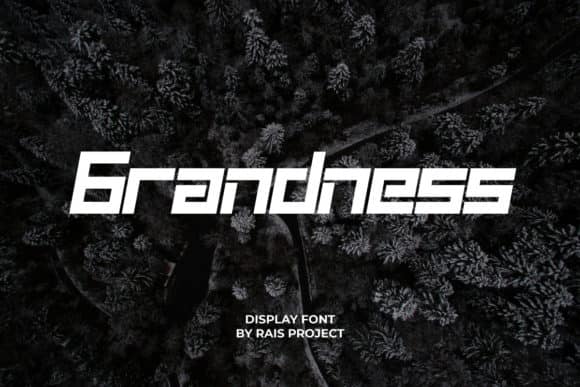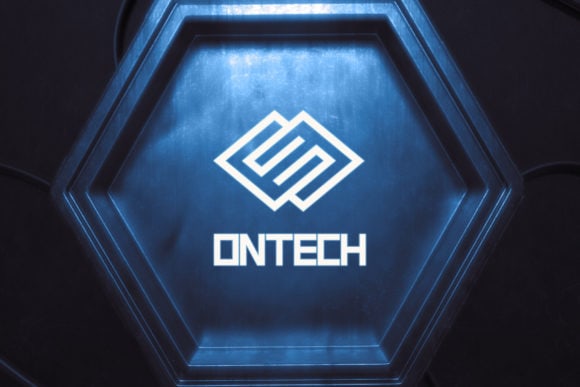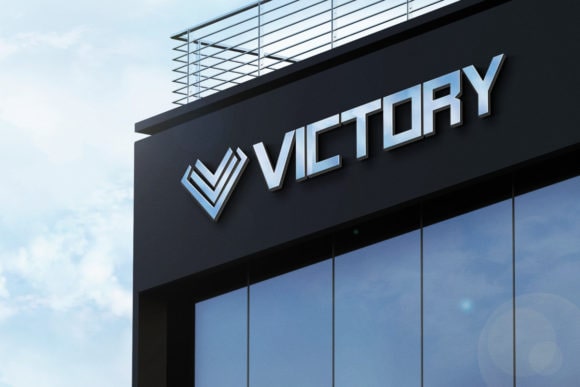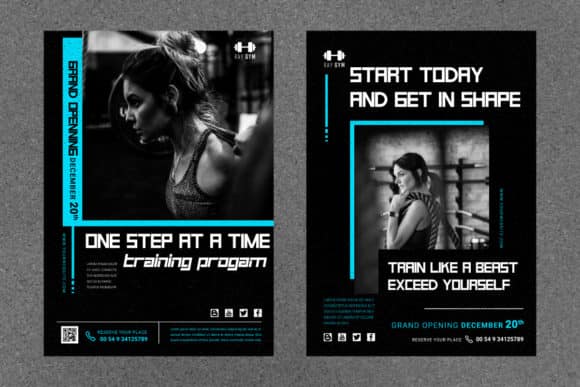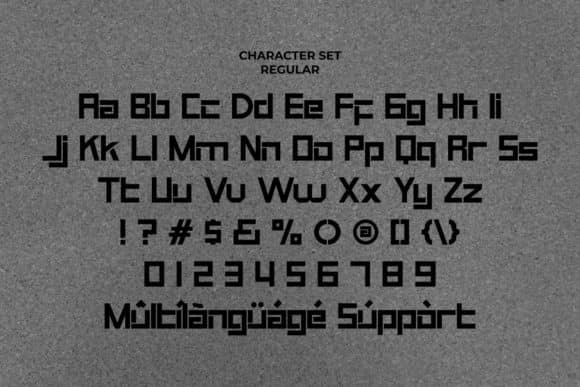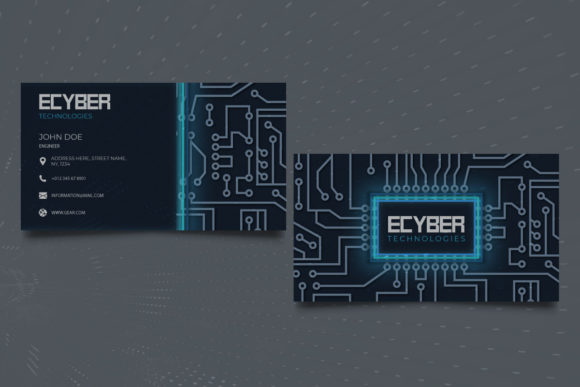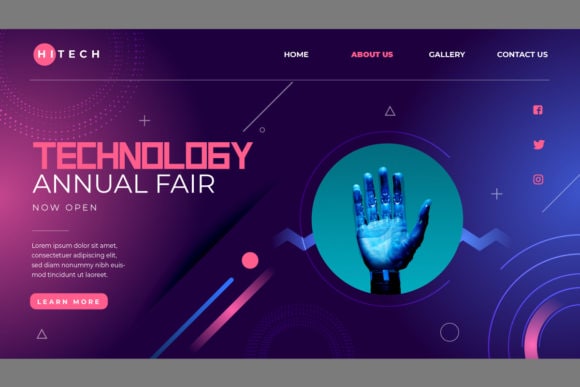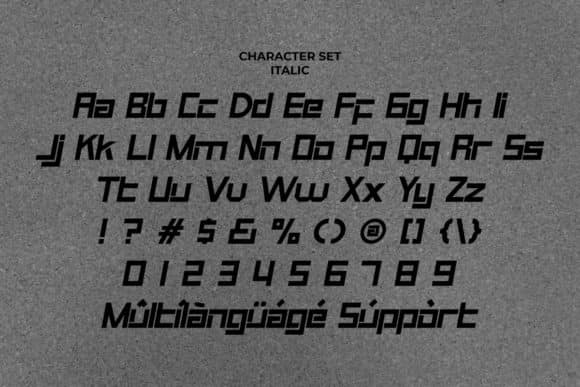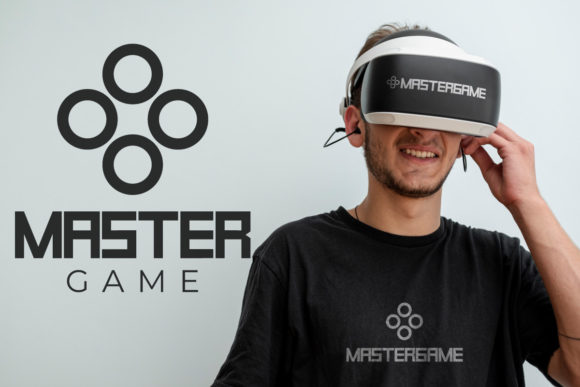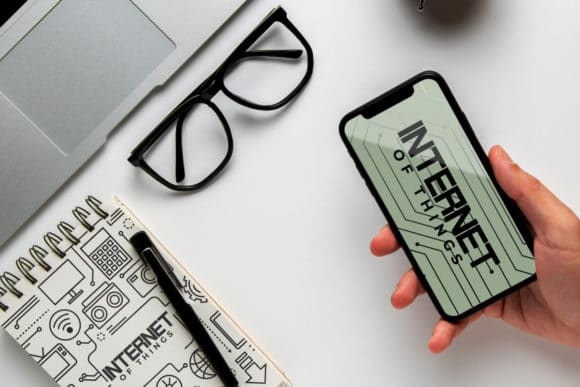
Grandness Sans Serif Font
Grandness Font is a modern sporty sans serif font designed by Rais Project. The font has unique shape that is great for Sports, Technology, Game etc
Grandness Font a display sans serif font family, inspired from sports and technology industries, designed by RaisProject. You can see the demo font below. You can also input any word you want so you can see what it will look like :
Grandness Sport Font designed by RaisProject team in Indonesia. The font is great for any your projects including : advertising, branding, magazine, signage, stationery and any projects that need unique minimal style. The industries for this font is Automotive, Apps, Technology, Game, Magazine, Sports etc Grandness Font comes with uppercase, lowercase, numerals, punctuation and Multi languages characters. This font has 2 perfect styles: Regular and Italic. On the package You will get: